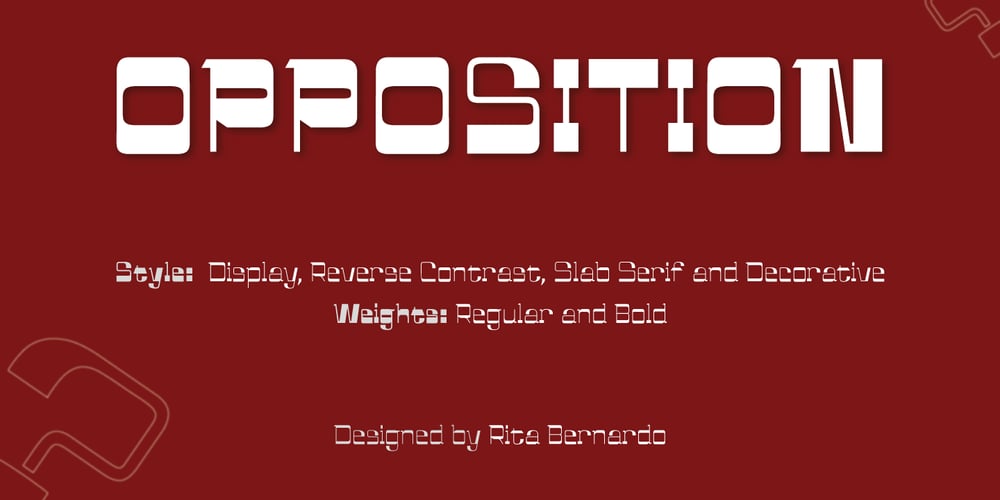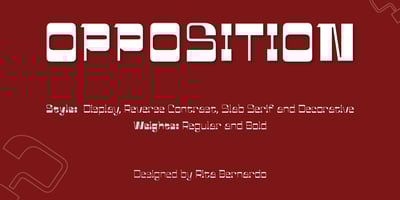
Opposition
Opposition font
Opposition Font Family was designed by Rita Bernardo and published by Rita Bernardo. Opposition contains 2 styles and family package options. Opposition is a serif typeface that contain reverse contrast and has a decorative character. Taking into account its specific design, which gives rise to its unique personality. Contain ligatures and is a multi-lingual typeface which is adapt to different Latin alphabet languages.This font contain two weights: regular and bold.It’s an ideal typeface for many types of applications in graphic design and beyond, such as websites, packaging, editorial design, titles, small texts and much more.